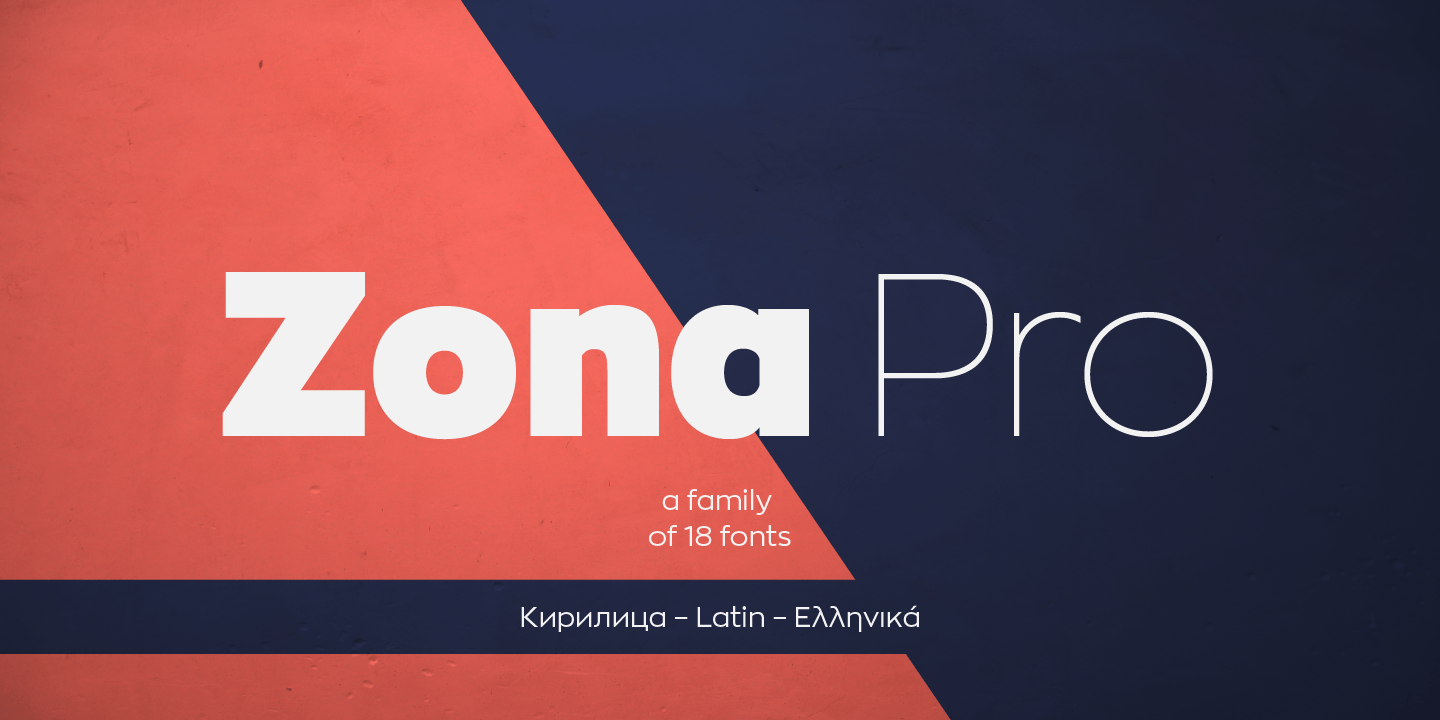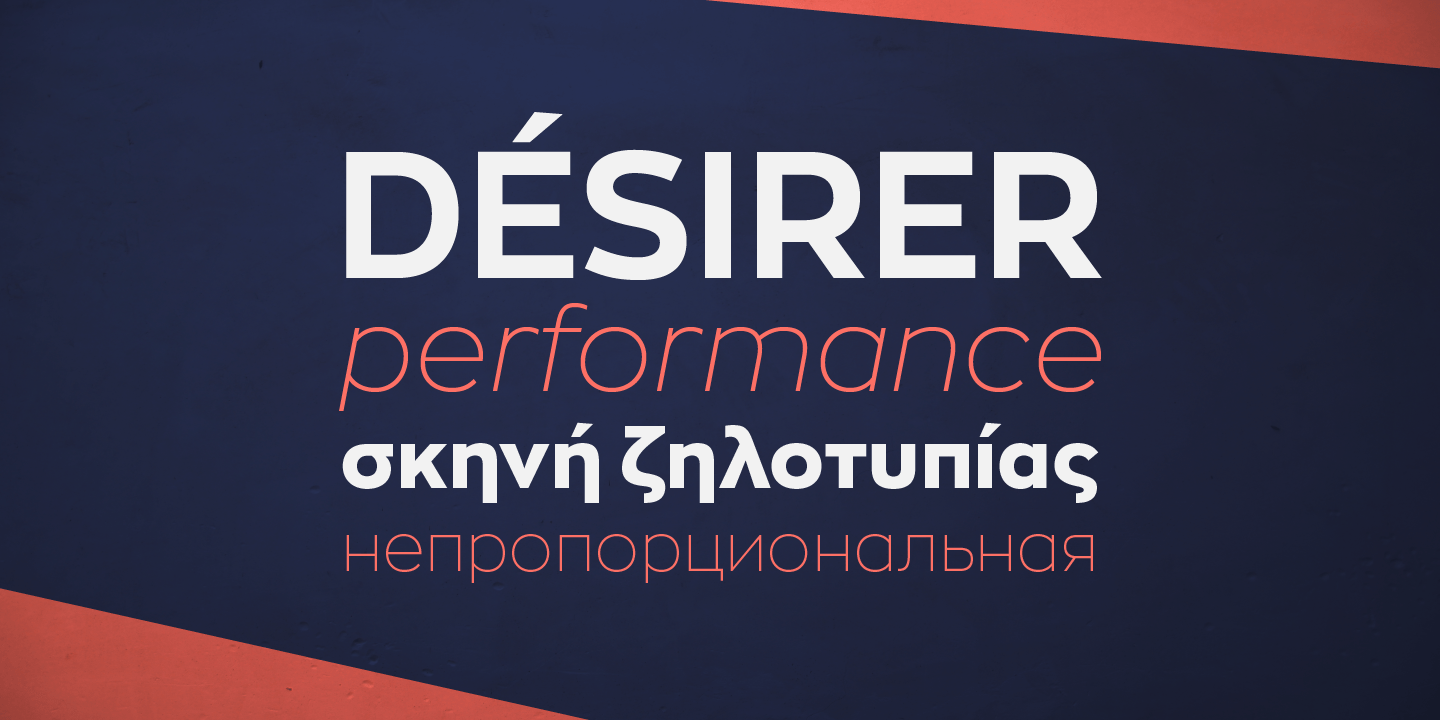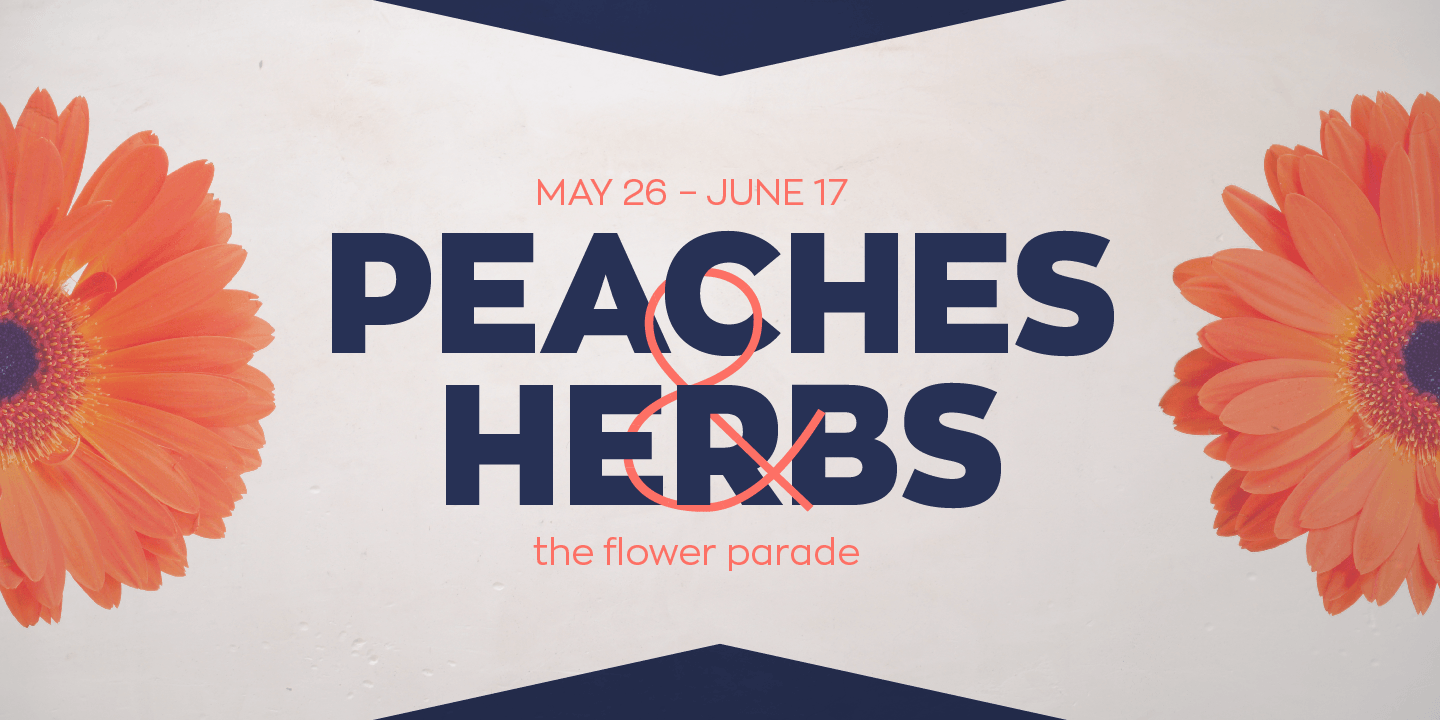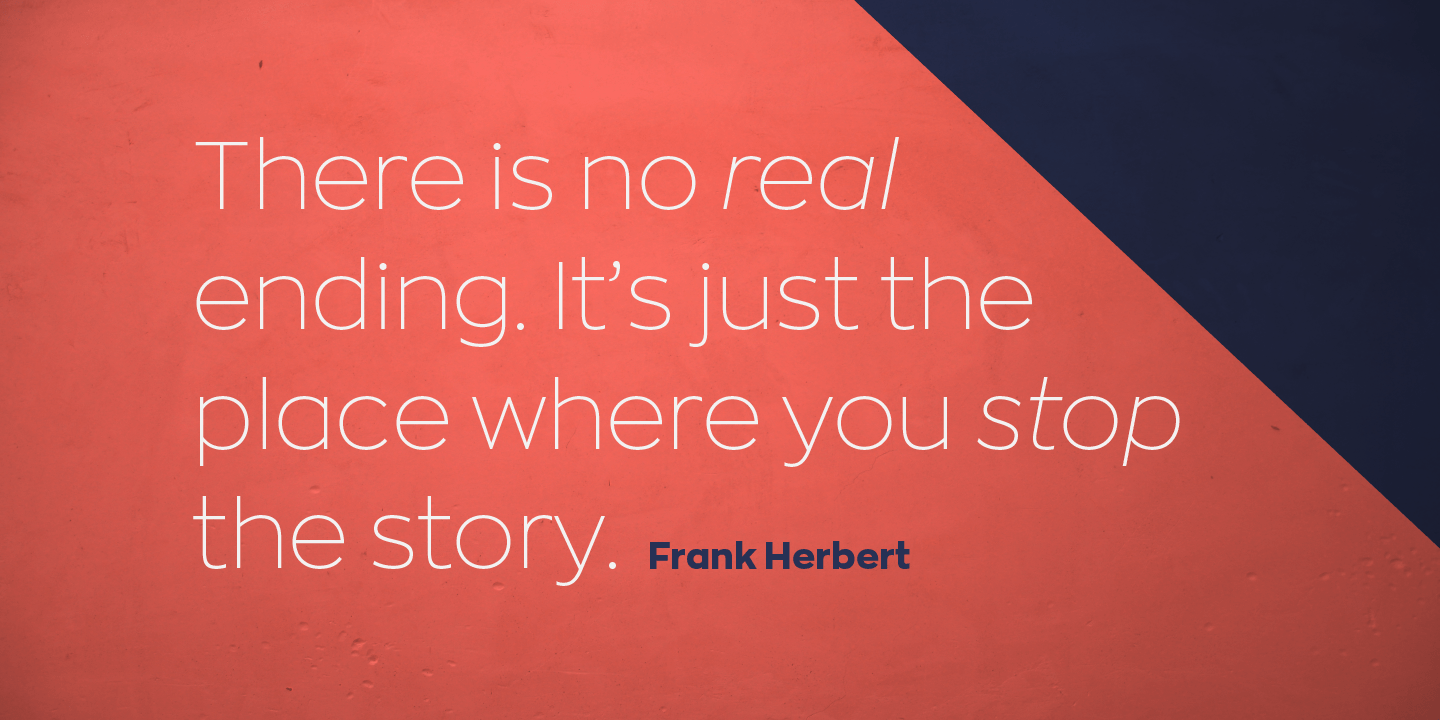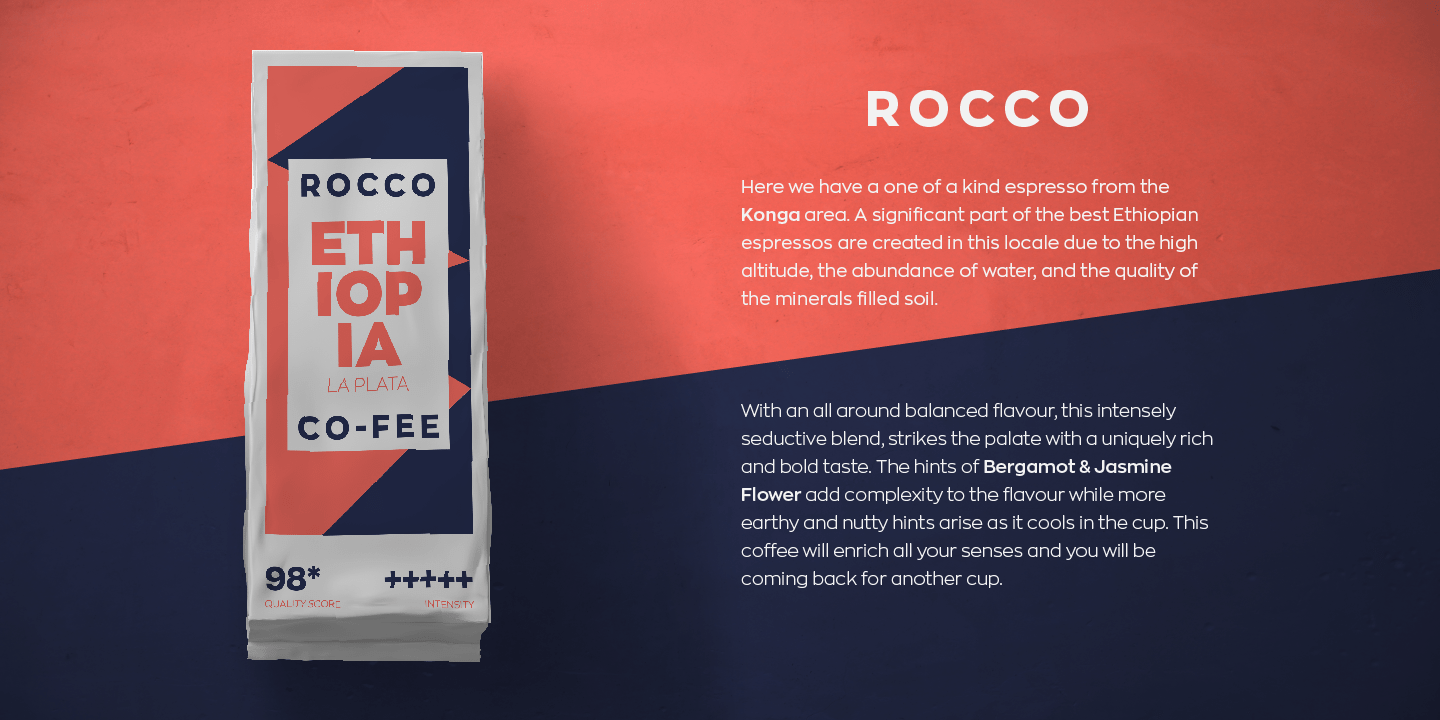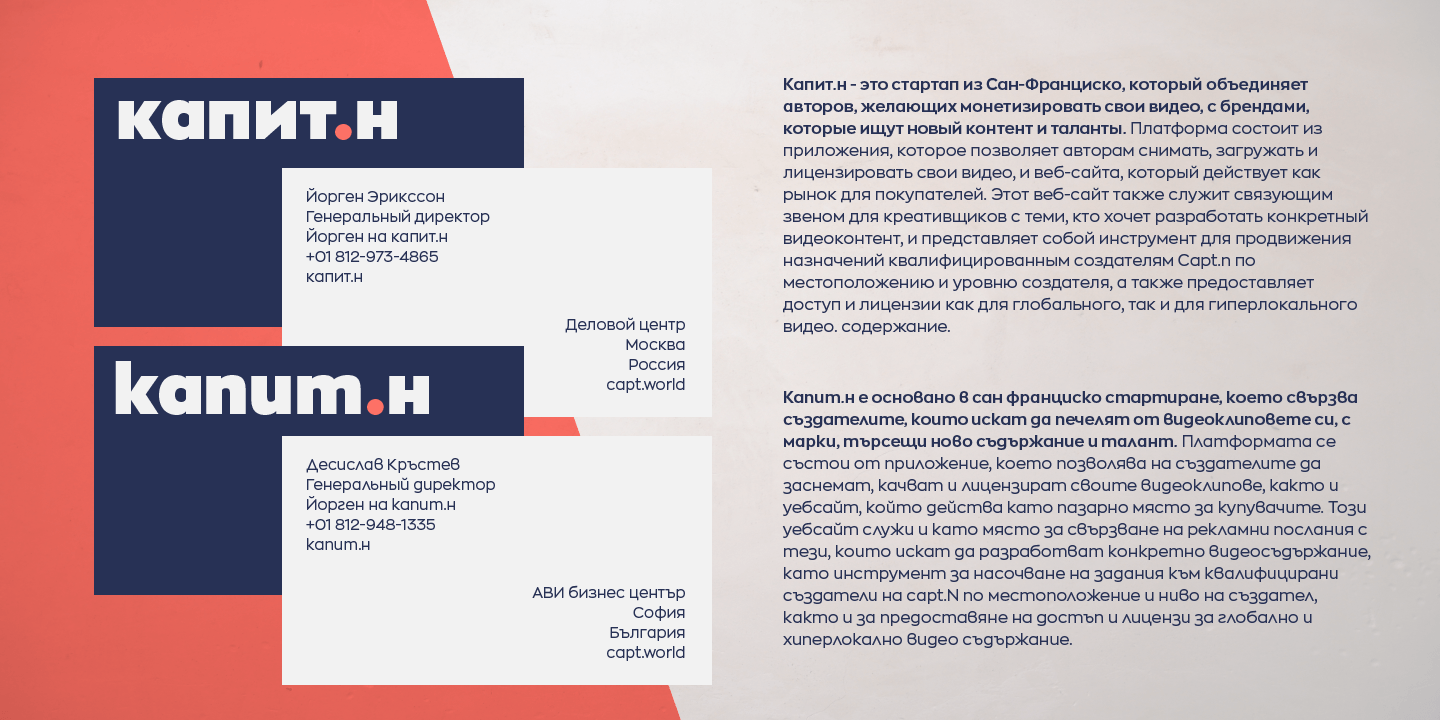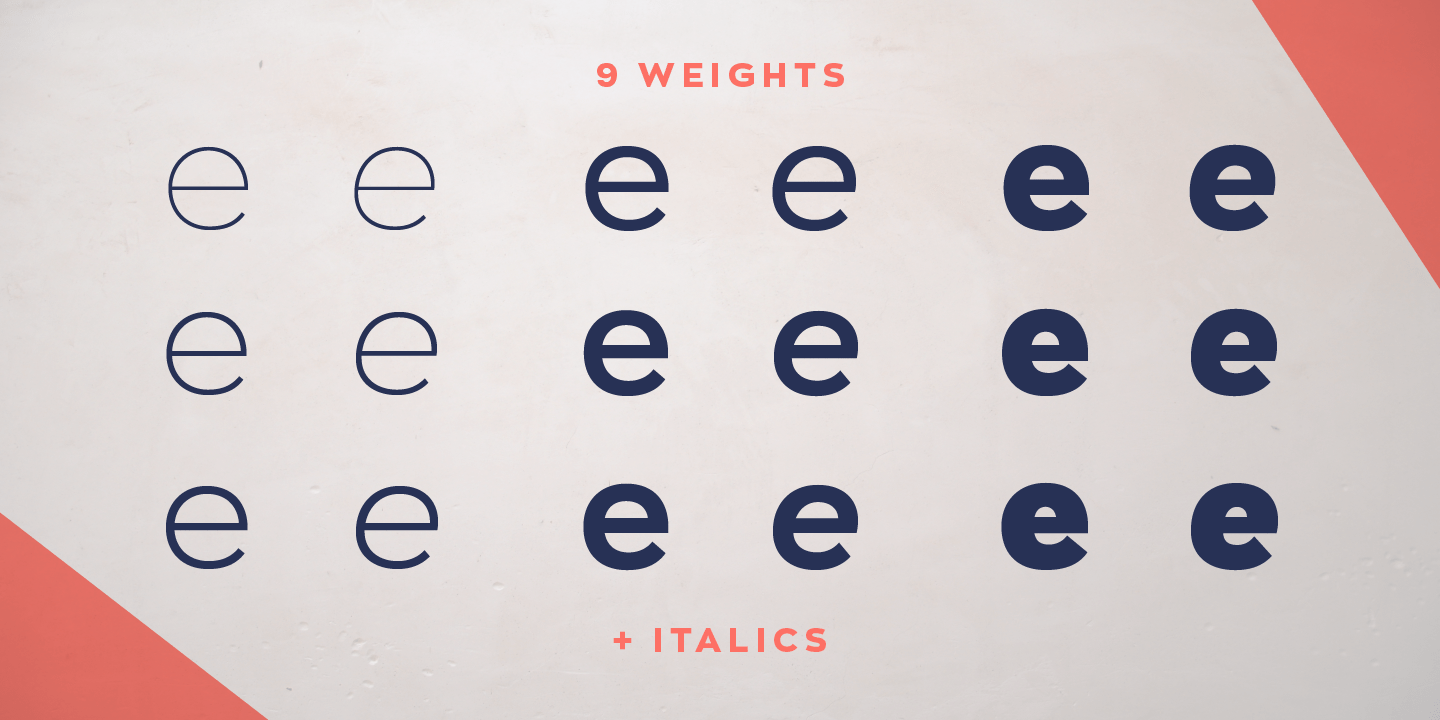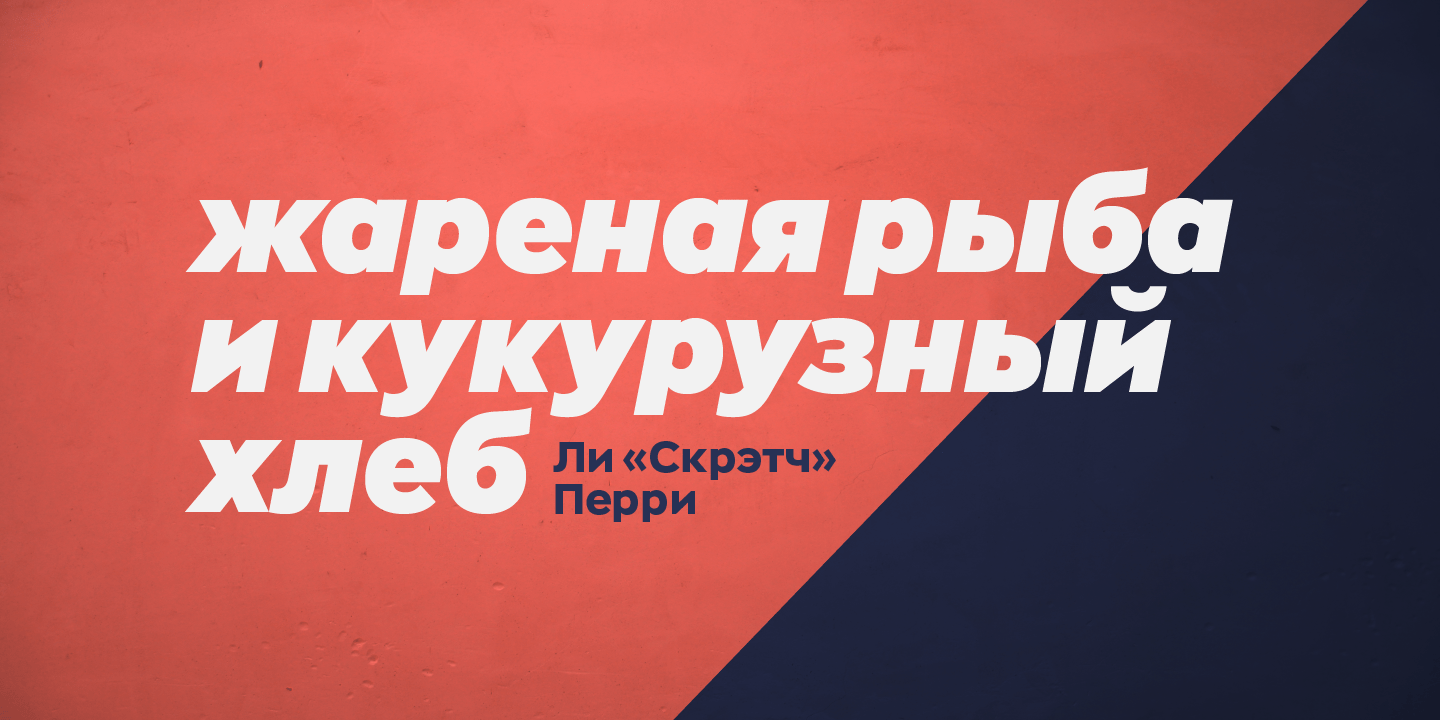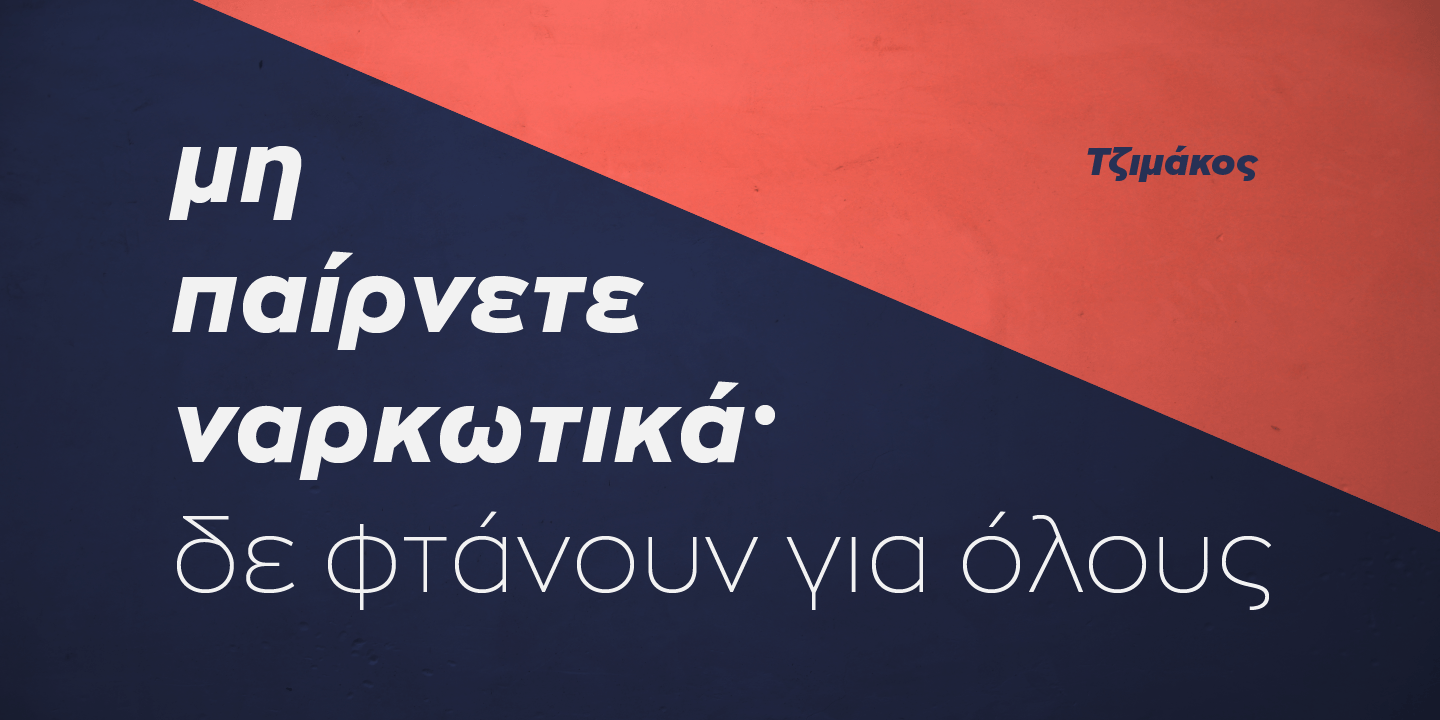
Zona Pro
Font Family by Kostas Bartsokas
Zona Pro is a geometric sans-serif type family of 9 styles plus matching italics, designed by Kostas Bartsokas and originally released in 2013/14. It draws inspiration from 1920's geometric style faces, having clean and highly readable shapes, and mixes it up in the heavier weights with a slight variance in the stroke widths, lending it a grotesque-ish unique and distinctive look. In 2019 it got refreshed, with the addition of the Cyrillic script support, an extra weight, and redesigned italics.
Zona Pro is multifunctional and versatile. With it's modern yet elegant form it performs amazingly in display sizes and headlines. At the same time it's really tall x-height makes Zona Pro equally suited for editorials and shorter lines of text in smaller sizes (magazines, newspapers).
Zona Pro supports Cyrillic, Greek, and Latin (Western, Central and Eastern European).